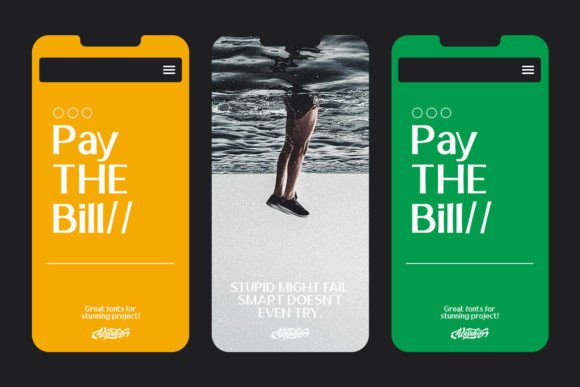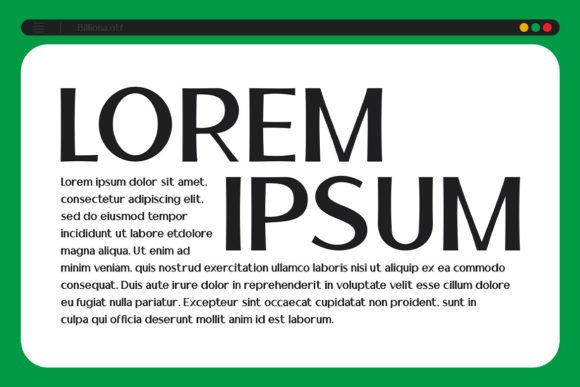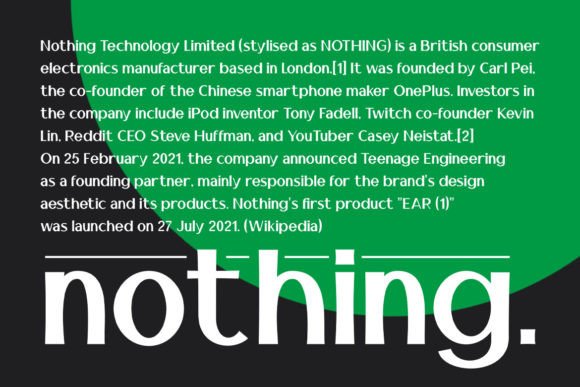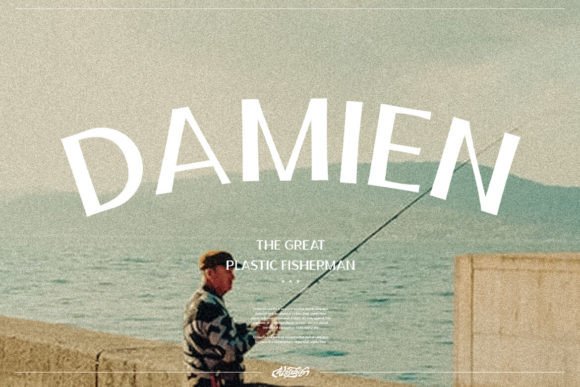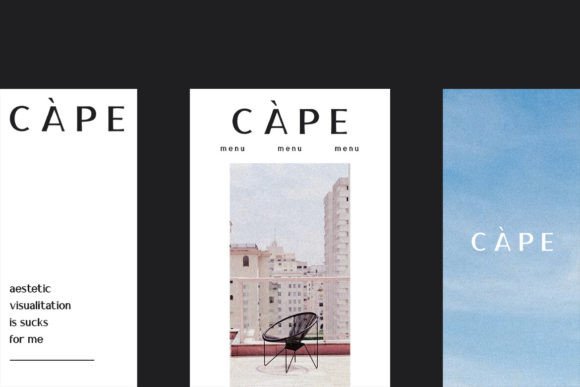
Billiona Font: The Epitome of Modern Elegance
In the realm of typography, fonts play a pivotal role in conveying messages, evoking emotions, and creating lasting impressions. Among the myriad of fonts available, Billiona stands out as a beacon of modernity and timeless elegance. This comprehensive article delves into the world of Billiona font, exploring its unique characteristics, versatility, and the impact it can have on your design projects.
Introduction to Billiona Font
Billiona font is a masterpiece of contemporary typography, designed to strike a perfect balance between clean lines and subtle serif-inspired details. This harmonious blend enables Billiona to excel in both digital and print media, making it an ideal choice for designers and crafters seeking a sophisticated and versatile font.
Key Features of Billiona Font
- Clean Lines: Billiona’s clean lines are a hallmark of its modern aesthetic, providing a crisp and clear visual appeal that enhances readability.
- Subtle Serif-Inspired Details: The subtle serif-inspired details add a touch of elegance and sophistication, setting Billiona apart from more conventional sans-serif fonts.
- Versatility: Billiona’s design ensures it can be used across a wide range of applications, from digital interfaces to print materials, without compromising on style or legibility.
Applications of Billiona Font
The versatility of Billiona font makes it suitable for various design projects, including:
- Digital Media: Billiona excels in digital platforms, including websites, mobile apps, and social media graphics, where its clean and modern look can enhance user experience.
- Print Media: In print, Billiona brings a level of sophistication to any project, be it brochures, posters, or business cards, ensuring your message is conveyed with elegance.
- Branding: For brands looking to establish a modern yet timeless image, Billiona can be a valuable asset in creating a consistent visual identity.
Why Choose Billiona Font?
Choosing Billiona font for your design projects comes with several advantages:
- Modern Appeal: Billiona’s contemporary design ensures your projects look current and appealing.
- Elegance: The subtle serif-inspired details lend an air of elegance, making it perfect for projects that require a sophisticated touch.
- Readability: Billiona’s clean lines and well-thought-out letterforms ensure excellent readability, making it suitable for both headings and body text.
Tips for Using Billiona Font Effectively
To maximize the impact of Billiona font in your designs, consider the following tips:
- Pair with Complementary Fonts: When pairing Billiona with other fonts, choose those that complement its modern and elegant feel.
- Adjust Font Weights: Experiment with different font weights to create visual hierarchy and add depth to your designs.
- Consider Color Schemes: Select color schemes that enhance the elegance and modernity of Billiona, ensuring a cohesive look.
| Author | Wasabib Studio |
Billiona font represents a perfect fusion of modernity and timeless elegance, making it an invaluable asset for designers and crafters. Its clean lines, subtle serif-inspired details, and versatility across digital and print media set it apart as a superior choice for a wide range of design projects. By incorporating Billiona into your typography arsenal, you can elevate your designs, convey your message with sophistication, and leave a lasting impression on your audience.
Experience the essence of modernity and timeless elegance with Billiona. Discover how this exceptional font can transform your design projects and help you achieve your creative goals.